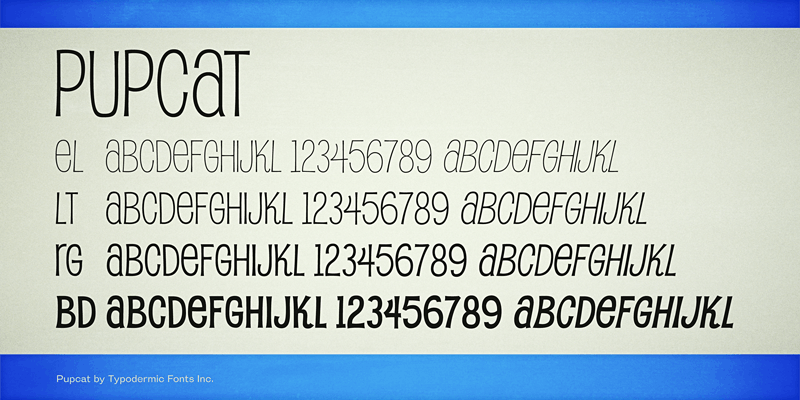
Font name: | Pupcat |
Pupcat was inspired by posters from 1960s Hollywood comedies. It’s cute, thin and lives for fun. Dig the OpenType features: an alternate A, E and R, fractions, ordinals & math symbols. This font includes a license that allows free commercial use: sometimes referred to as a desktop license. This allows you to install the font on a computer and use it to create posters, web graphics, game graphics, t-shirts, videos, signs, logos and more. Read the license agreement for details. If you'd like to embed this font in an app, ebook, on the web or anything that's not covered by the desktop license agreement, visit the link below. You'll find distributors who offer different types of licenses or you can contact me for help. http://typodermicfonts.com/pupcat/ This free font is part of a larger font family. Check out the rest of the family through the link above. |